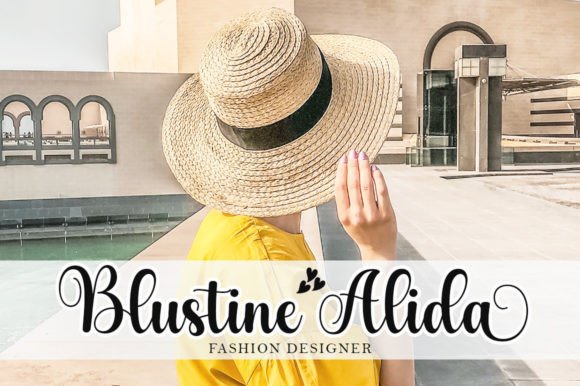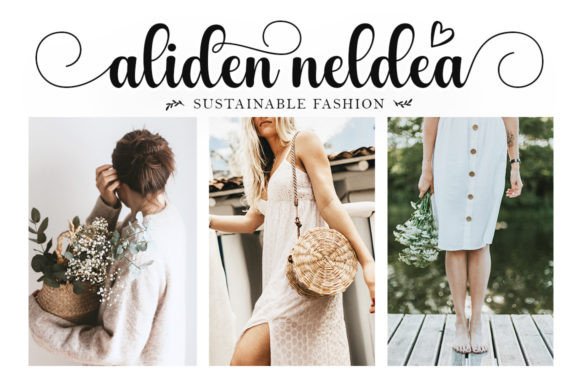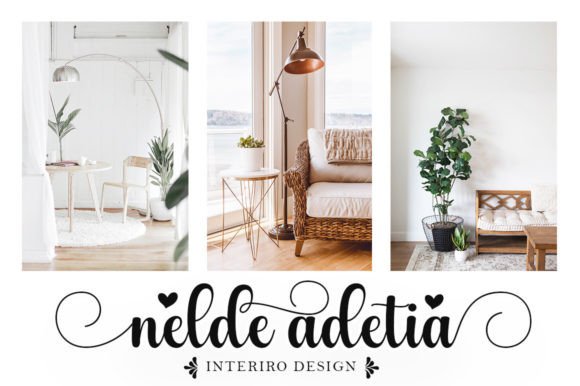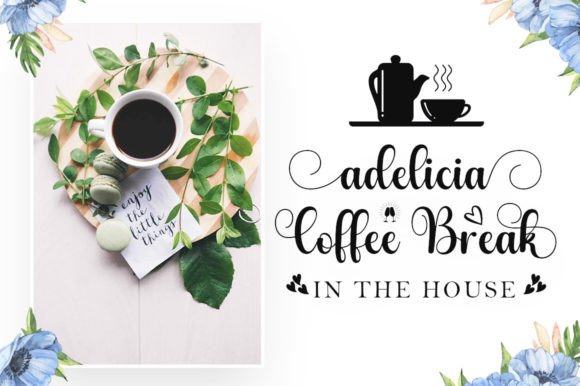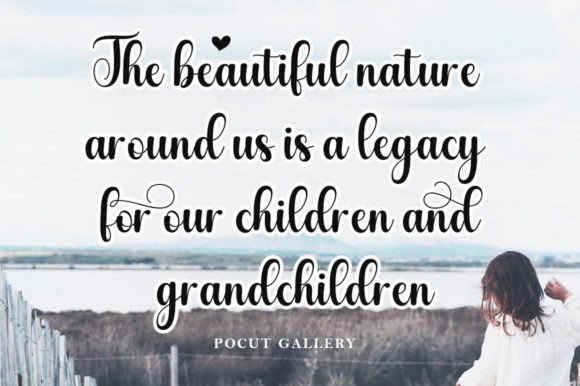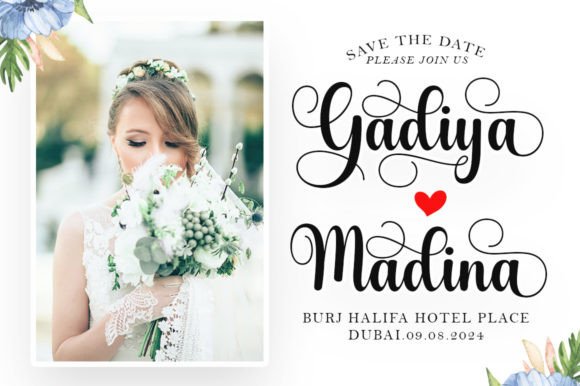
Gadiya Font: Elevate Your Designs with Elegance and Sophistication
Are you on the hunt for a font that exudes delicacy, elegance, and a touch of timeless sophistication? Look no further than the Gadiya Font. This beautifully crafted, handwritten font is designed to capture the essence of luxury and refinement, making it the perfect addition to your design arsenal. Whether you’re working on a branding project, crafting a bespoke invitation, or simply looking to elevate your digital content, Gadiya is sure to leave a lasting impression.
The Distinctive Charm of Gadiya Font
Gadiya Font boasts an incredibly distinct style that sets it apart from other fonts in its category. Its delicate and flowing lines are meticulously designed to convey a sense of elegance and poise. The font’s unique character lies in its ability to blend classic sophistication with modern appeal, making it versatile enough to be used across a wide range of projects. From wedding planners and luxury brands to artists and crafters, Gadiya offers the perfect blend of refinement and creativity.
Key Features of Gadiya Font
- Delicate and Elegant Design: Gadiya’s design is characterized by its fine lines and graceful curves, giving it a sophisticated look that is hard to achieve with standard fonts.
- Timeless Appeal: Unlike trends that fade over time, Gadiya’s classic style ensures that your designs remain relevant and stylish for years to come.
- Versatility: This font can be used for a variety of projects, including but not limited to, logos, branding, invitations, packaging, and digital media.
- Handwritten with Love: The personal touch of a handwritten font adds a layer of warmth and authenticity to your designs, making them stand out.
How to Use Gadiya Font in Your Projects
Integrating Gadiya Font into your projects is straightforward and beneficial. Here are a few ideas to get you started:
- Branding and Logos: Use Gadiya to create a luxurious brand identity that speaks to elegance and sophistication.
- Wedding and Event Planning: Add a touch of class to your wedding invitations, menus, and event decor with Gadiya’s beautiful script.
- Digital Content: Elevate your blog, website, or social media graphics with a font that commands attention and respect.
- Packaging: Stand out on store shelves with product packaging that features the distinctive and refined look of Gadiya.
Why Designers and Crafters Love Gadiya Font
Designers and crafters around the world have fallen in love with Gadiya for its versatility, elegance, and the unique touch it brings to any project. Here are a few reasons why:
- Easy to Read: Despite its elegant and delicate design, Gadiya remains highly legible, making it practical for a wide range of applications.
- Support for Multiple Languages: Gadiya offers extensive language support, making it a great choice for global brands and projects.
In a world where design plays a crucial role in communication and brand identity, having the right font can make all the difference. Gadiya Font, with its delicate, elegant, and flowing style, offers a unique solution for designers and crafters looking to add a touch of sophistication to their projects. Its timeless appeal, versatility, and distinct charm make it an invaluable asset in your design toolkit. So, fall in love with Gadiya’s beautiful script and use it to create spectacular designs that leave a lasting impression.
Whether you’re a seasoned designer or a crafting enthusiast, Gadiya Font is sure to inspire your creativity and help you achieve your design goals with elegance and style.